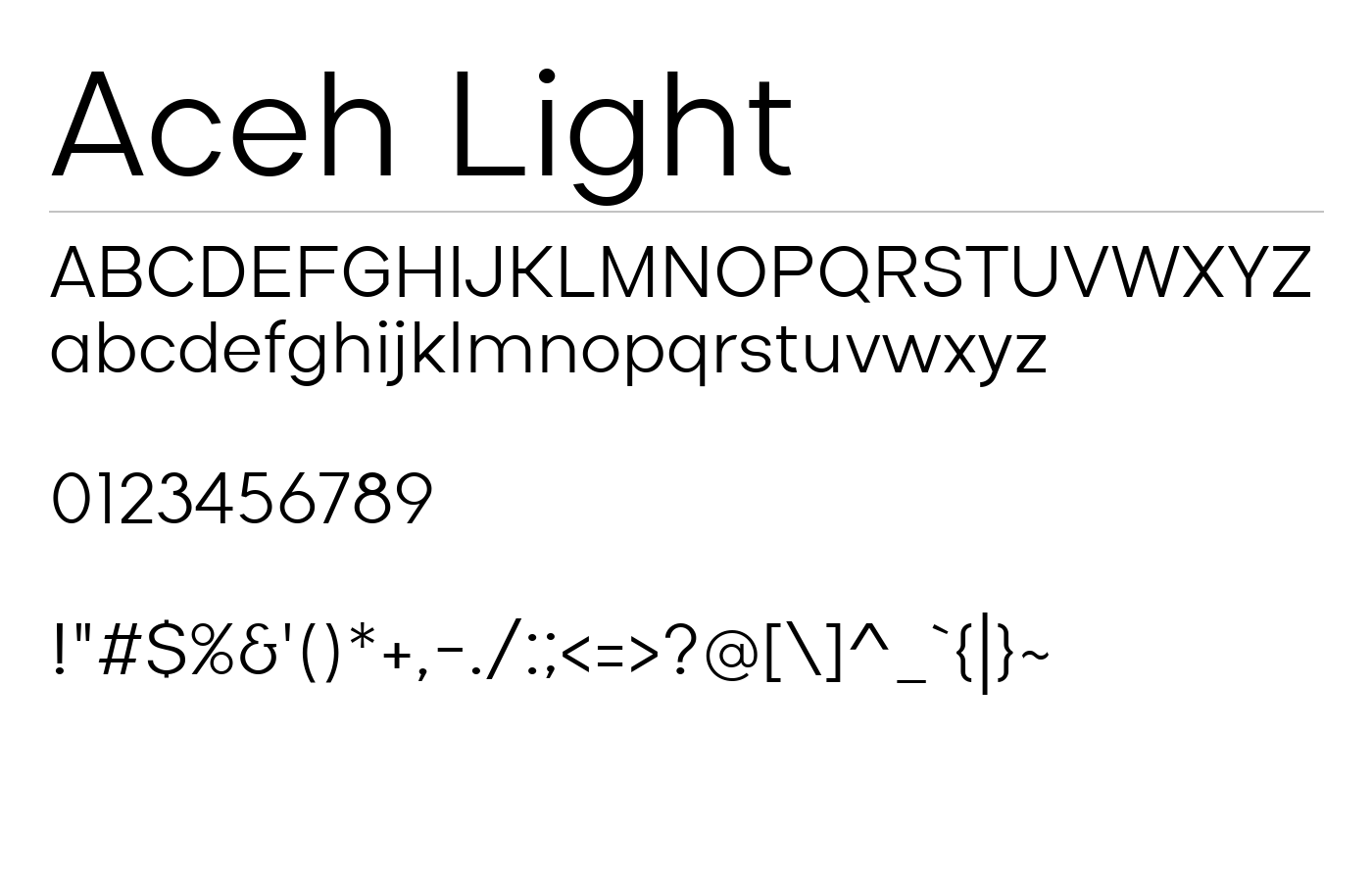
Aceh Light is a clean and modern sans-serif font featuring a light weight and a neutral, geometric design. Its tall x-height and balanced letterforms make it highly readable and versatile, ideal for both digital and print use, especially in branding, editorial design, and user interfaces. This font’s minimalist style conveys a contemporary and professional tone, fitting well with sleek, sophisticated, and user-friendly projects.
Aceh Font
About Aceh Font
| Font family | Aceh Font |
| Designer | Muhammad Ridha Agusni |